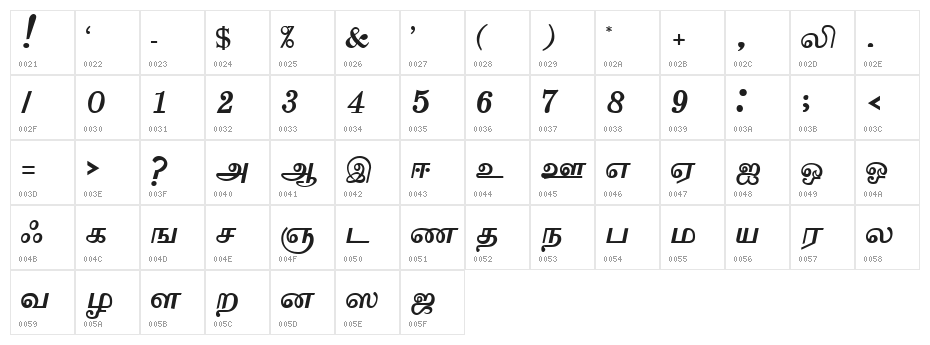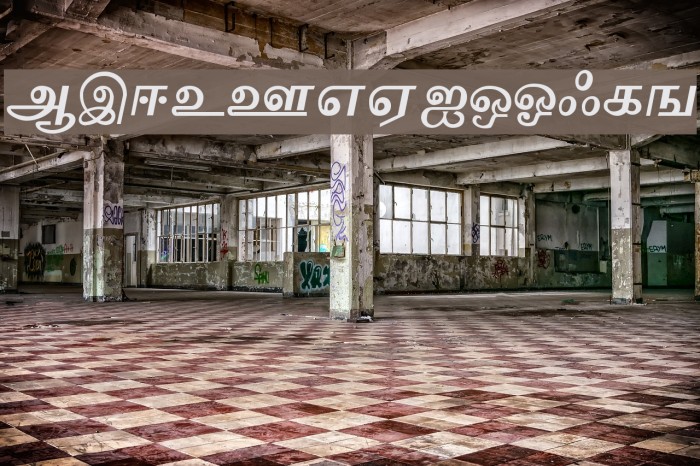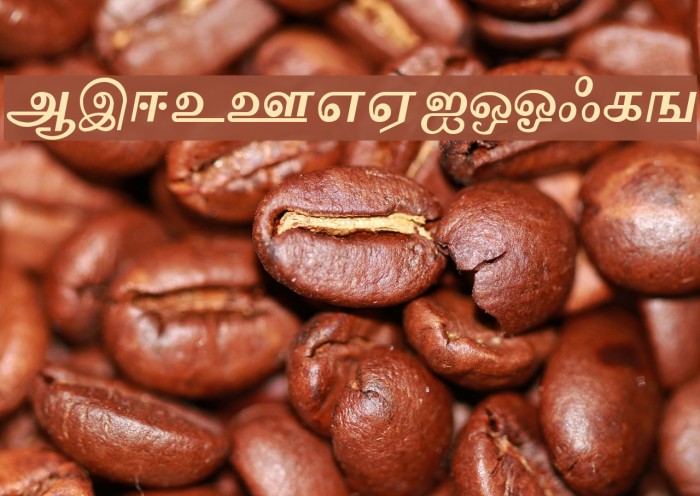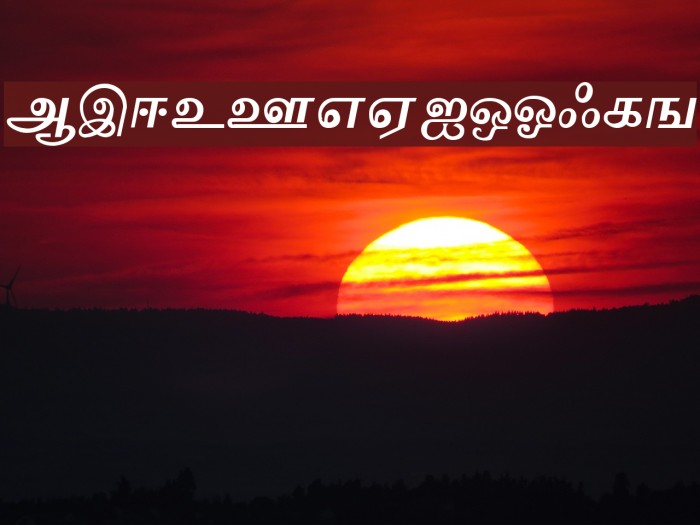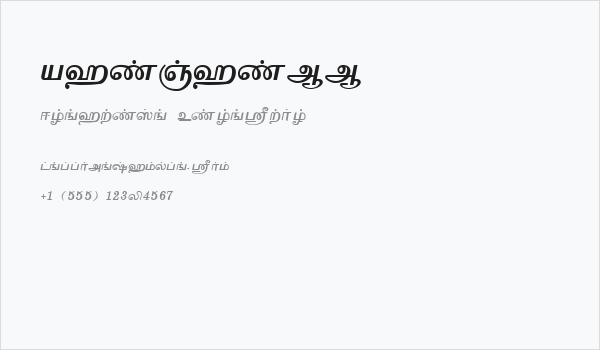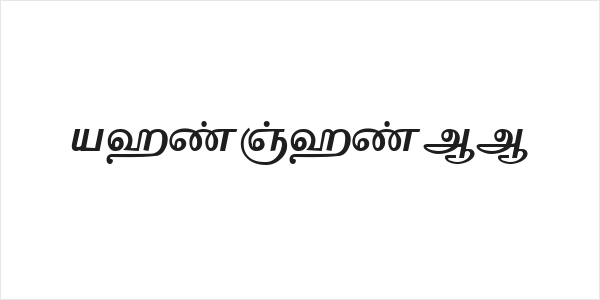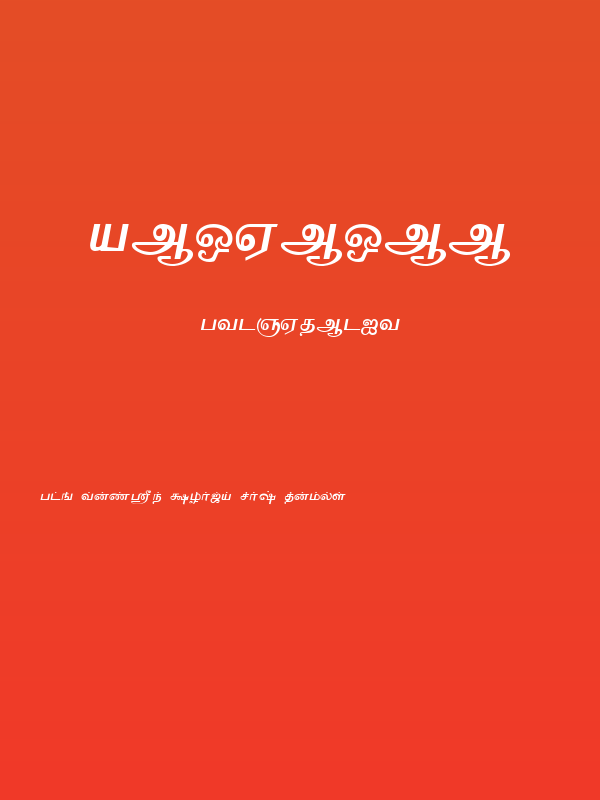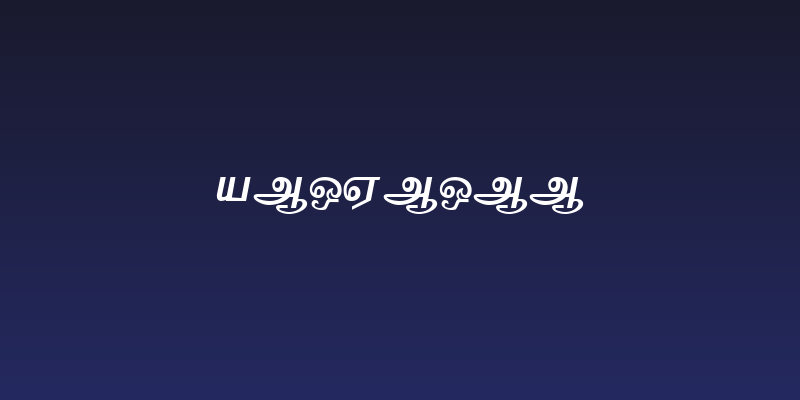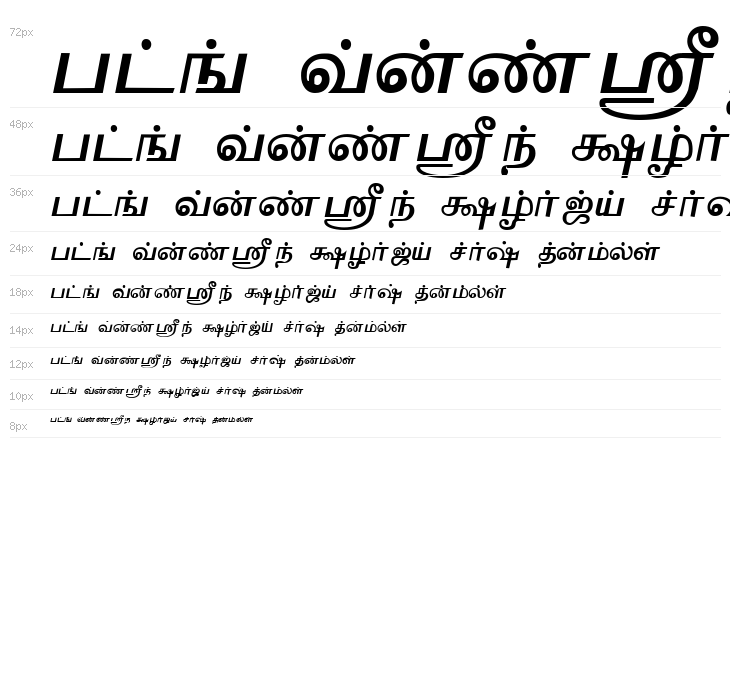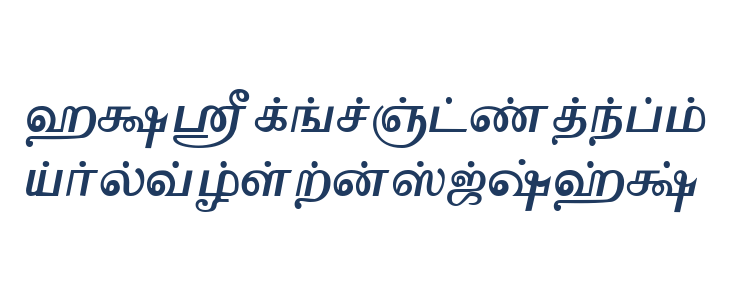
VaigaiAA Font
VaigaiAA Description
This font features a blend of traditional and modern elements, characterized by its elegant curves and distinct strokes. The script-like appearance is complemented by a moderate contrast in stroke thickness, giving it a dynamic yet readable quality. The characters are well-spaced, providing a balanced and harmonious look. The numerals and special characters maintain the same stylistic approach, ensuring consistency across different uses. This font's unique style makes it suitable for a variety of design projects that require a touch of sophistication and cultural flair.
| Proposed Projects | Ideal for cultural event posters, invitations, branding for traditional products, and artistic projects. |